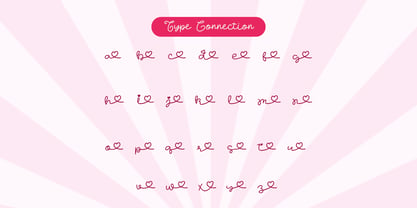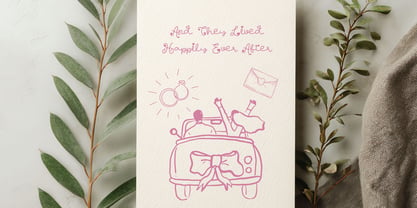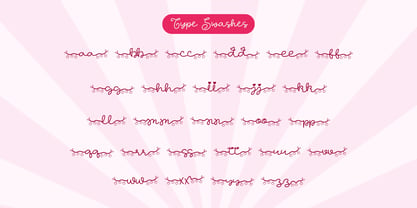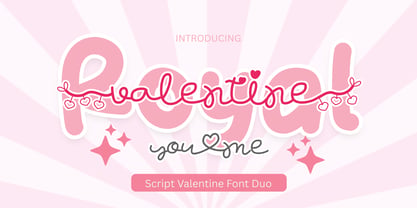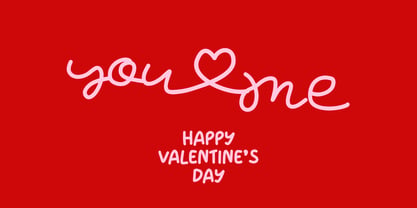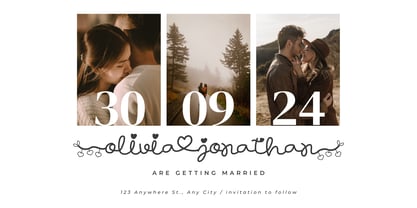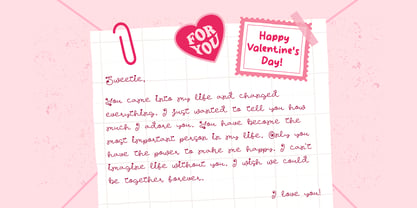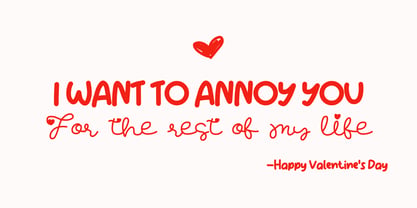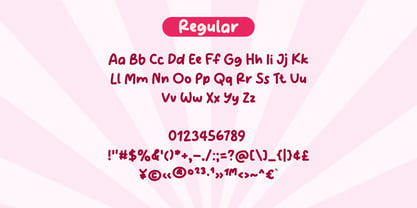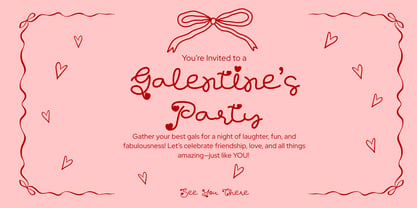
Royal Valentine
by Brown Cupple Typeface
The Royal Valentine Font Family was designed by Nattha​ Potchanad​ and published by Brown Cupple Typeface. Royal Valentine contains 2 styles and family package options. More about this family
The display font brings rounded, bouncy letterforms that stand out instantly, while the script font adds a soft, flowing contrast for emphasis and elegance. Together, they create a balanced typographic duo ideal for expressive headlines and supporting text. Royal Valentine is perfect for Valentine’s Day designs, logos, branding, packaging, wedding invitations, greeting cards, posters, quotes, social media graphics, and retro-inspired creative projects. Whether used together or separately, both fonts complement each other beautifully and elevate your designs with a cheerful, romantic mood.